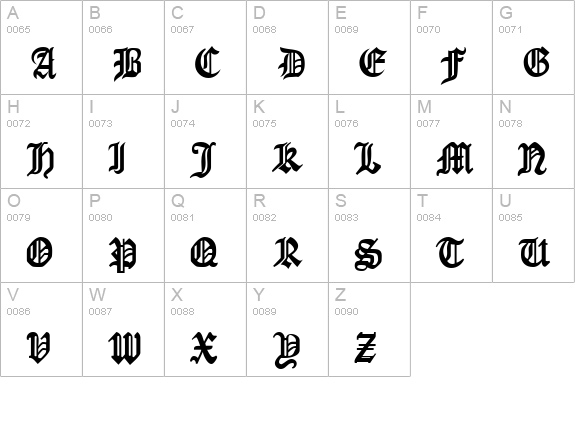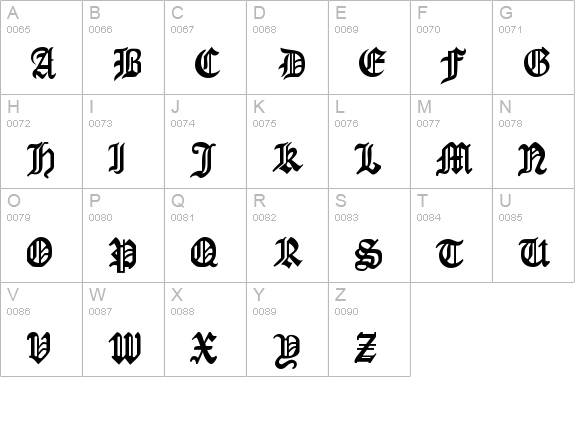
AngloSSK Font Details
AngloSSK font is a stunning display typeface that exudes elegance and sophistication. Its unique blend of sharp edges and subtle curves creates a perfect balance between modernity and classic style. This versatile font is perfect for various design projects, including logos, branding, posters, and more. What sets AngloSSK font apart is not only its impeccable design but also the fact that it is available for free download at FontsMarket.com. This means you can easily access this beautiful font and use it in your creative endeavors without any cost. Don't miss out on the opportunity to enhance your designs with the timeless charm of AngloSSK font. Download it now and let your creativity shine!